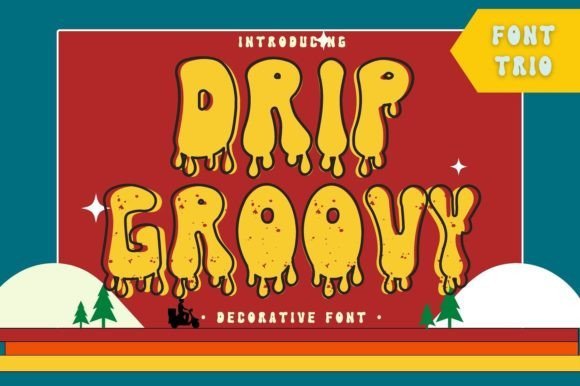
Get Your Design Groove On with the Drip Groovy Font
Have you ever been brainstorming ideas for a project, and suddenly, a spark of creativity hits you? The words start flowing, and you can envision the perfect design in your mind’s eye. That’s exactly what happens when you add a dash of fun and playfulness to your work – and that’s where the Drip Groovy Font comes in.
This retro-inspired decorative font is the perfect addition to any design project. From logos and branding to invitations and photo albums, the Drip Groovy Font adds a touch of authenticity and whimsy that’s sure to capture attention. As a designer, you’ll appreciate the versatility and uniqueness it brings to your work.
Drip Groovy Font Key Features
- Unique Characteristics: The Drip Groovy Font features a unique, hand-drawn design with a mix of bold and cursive elements, making it perfect for creating eye-catching headlines and titles.
Drip Groovy Font Review
Overall, I was quite excited to dive into the “Drip Groovy Font” and see what it has to offer. Here’s my honest take:
The “Drip Groovy Font” has a certain retro vibe that I immediately fell in love with. The font’s unique blend of modern and vintage elements is quite appealing, making it perfect for projects that require a funky twist. The font is also incredibly versatile, with a wide range of applications from headings to body text.
- Unique blend of modern and vintage elements
- Highly versatile with various application options
- Well-suited for projects that require a funky twist
While the “Drip Groovy Font” has its strengths, there are a few limitations that I think are worth mentioning. The font can be quite busy, which may not be suitable for projects where simplicity is key. Additionally, the font’s irregularities may not be ideal for projects that require precision typography.
- Font can be too busy for projects that require simplicity
- Irregularities may not be ideal for precision typography
Overall, I think the “Drip Groovy Font” is a great addition to any designer’s toolkit. While it may not be perfect for every project, its unique style and versatility make it a great choice for those looking to add a little extra flair to their designs.
The Drip Groovy Font is perfect for:
1. Social media graphics and posts.
2. Branding and marketing materials.
3. Creative projects and illustrations.
4. Fun and playful designs.
Alternatives to Drip Groovy Font for Designers